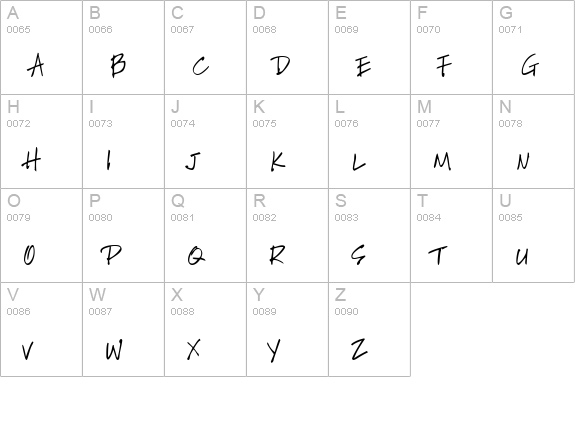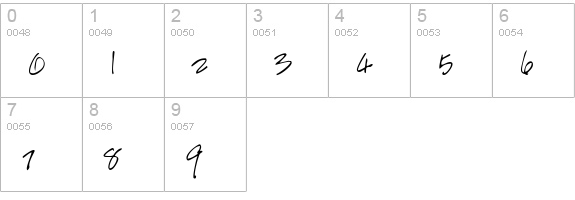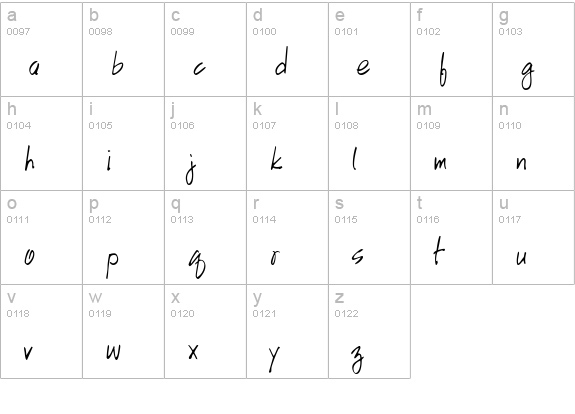
HandScriptLefty Italic Font Details
HandScriptLefty Italic is a distinctive, italic variant in the HandScriptLefty typeface family \xE2\x80\x94 well suited to design and typography projects.
HandScriptLefty Italic is a stunningly elegant and versatile font that adds a touch of sophistication to any design project. With its delicate curves and graceful strokes, this font captures the essence of handwritten calligraphy, making it perfect for adding a personal and artistic touch to your creations. The unique italic slant of HandScriptLefty Italic adds a sense of movement and dynamism to your text, creating a visually captivating effect. Whether you're designing wedding invitations, logos, or branding materials, this font will effortlessly elevate your work to new heights of beauty and elegance. One of the most remarkable features of HandScriptLefty Italic is that it is available for free download at FontsMarket.com. This means that you can easily access this exquisite font and use it in your projects without any cost. The freedom to use this font without any limitations allows you to explore your creativity and bring your ideas to life without any constraints. HandScriptLefty Italic is the perfect choice for anyone seeking a font that combines style, legibility, and a touch of whimsy. Its flowing and organic design lends itself well to a wide range of applications, from wedding stationery and greeting cards to blog headers and social media graphics. So why wait? Download HandScriptLefty Italic today and unleash your creativity with this exquisite font. With its timeless beauty and freely available nature, it is sure to become a go-to choice for designers and creatives alike. Embrace the elegance of HandScriptLefty Italic and make your designs stand out from the crowd.